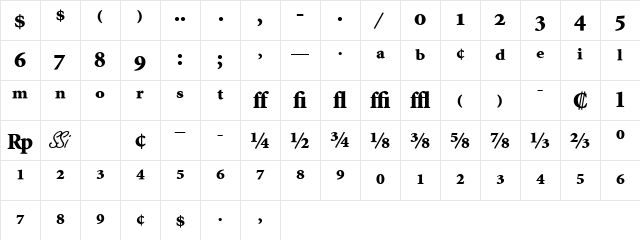
Atlantix Pro Black SSi Black
Design Context for Atlantix Pro Black SSi
Atlantix Pro Black SSi is a composed and adaptable typeface that performs quietly and consistently across a wide range of design contexts.
Pro Tip: Use Atlantix Pro Black SSi in both headline and body roles to test its range before committing to a single application.